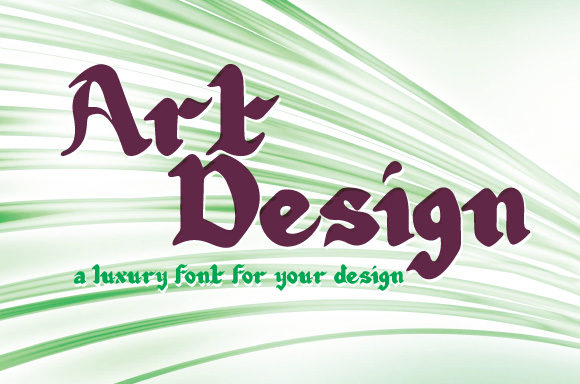
The Ultimate Guide to Art Design Font: Unleash Your Creativity
I’ll never forget the time I was working on a branding project for a quirky craft brewery, and I just couldn’t find the right font to capture their playful vibe. The client wanted something that was both clean and stylish, but also had a bit of an edge. That’s when I stumbled upon the Art Design font, and it completely transformed the project. In this article, I’ll share my love for this amazing display font, its features, and how to make the most of it in your designs.
An Honest Review of Art Design Font
So, what makes Art Design font so special? Let’s dive into the good stuff and a few quirks I’ve discovered.
- ✨ Clean and stylish aesthetic: Art Design font has a modern, sophisticated look that’s perfect for logos, branding, and social media.
- ✅ Quirky and playful: This font has a unique personality that’s sure to make your designs stand out.
- 💡 Highly versatile: Use it for crafty DIY projects, business cards, or even large-scale billboards.
While Art Design font is amazing, there are a few things to keep in mind:
- 🤔 Limited use in body text: Due to its display nature, Art Design font might not be the best choice for long blocks of text.
- ⚠️ Some characters may require manual kerning: As with any font, you might need to adjust kerning for certain character combinations to achieve optimal results.
The Backstory of Art Design Font
Art Design font was created with the intention of providing a unique, creative solution for designers and crafty DIY enthusiasts. While the actual designer remains a mystery, it’s clear that their goal was to craft a font that’s both stylish and approachable.
| Author | Ailil Design Studio |
Q: What type of projects is Art Design font best suited for?
A: Art Design font is perfect for logos, branding, social media, and crafty DIY projects.
Q: Can I combine Art Design font with other fonts?
A: Absolutely! Art Design font pairs well with a variety of fonts. Experiment with different combinations to find the perfect match for your project.